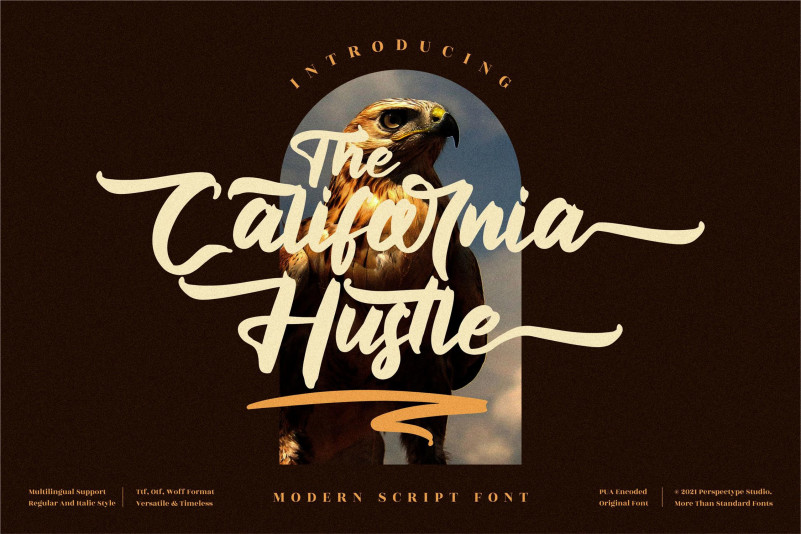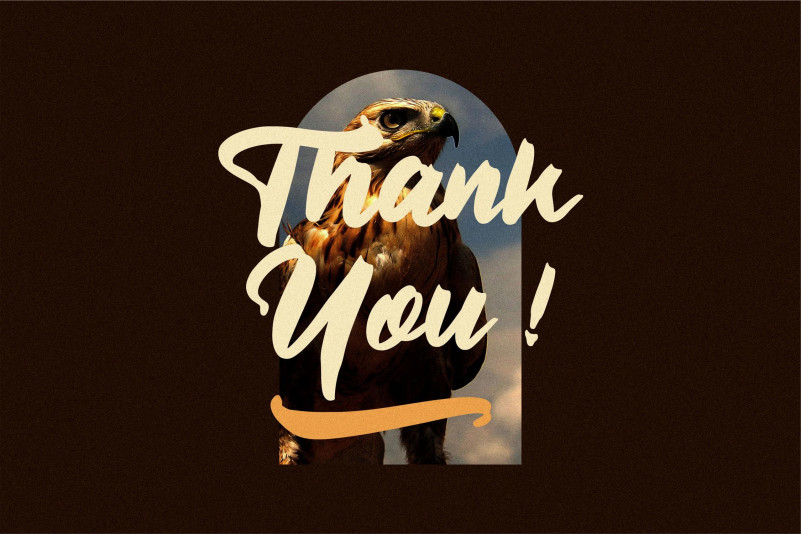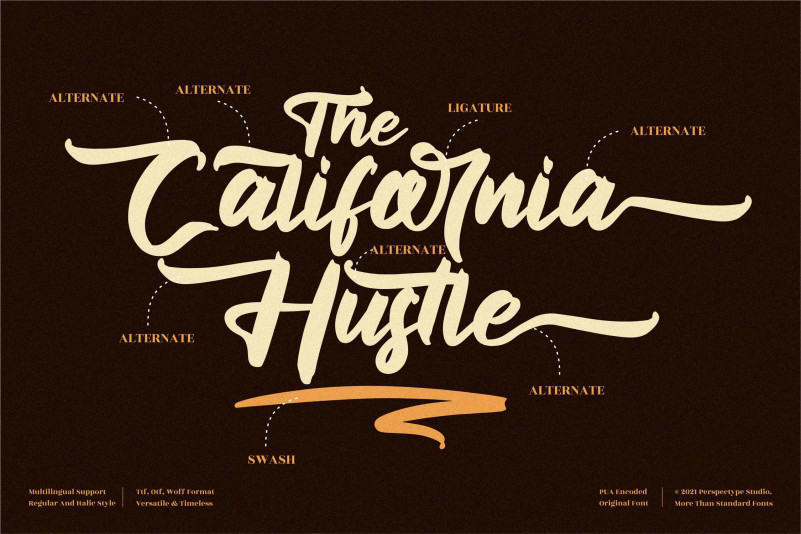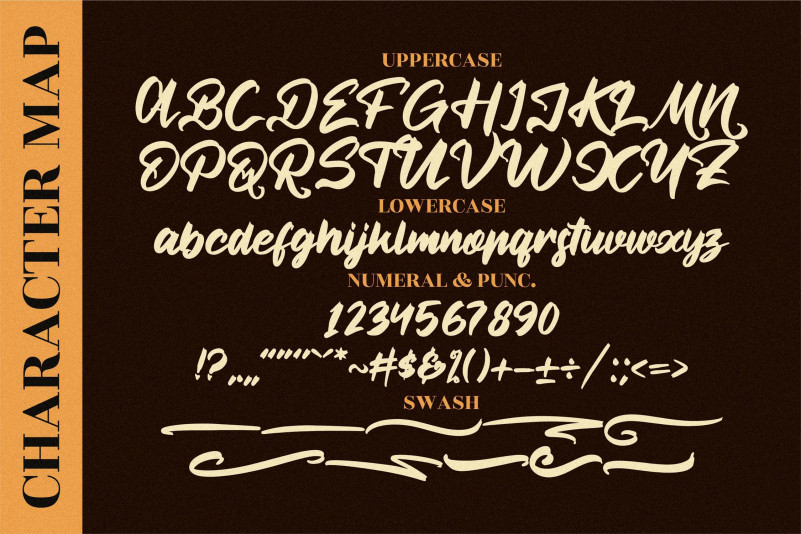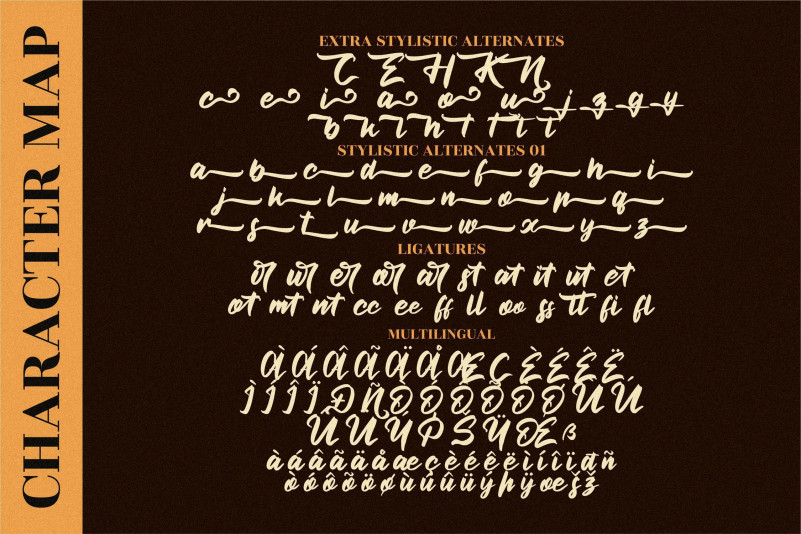
The California Hustle Font
The California Hustle Script Font
This is a timeless and refined handwritten font. It looks beautiful on a variety of designs requiring a personalized style, such as wedding invitations, thank you cards, weddings, greeting cards, logos and so on. This font is PUA encoded which means you can access all of the glyphs and swashes with ease!